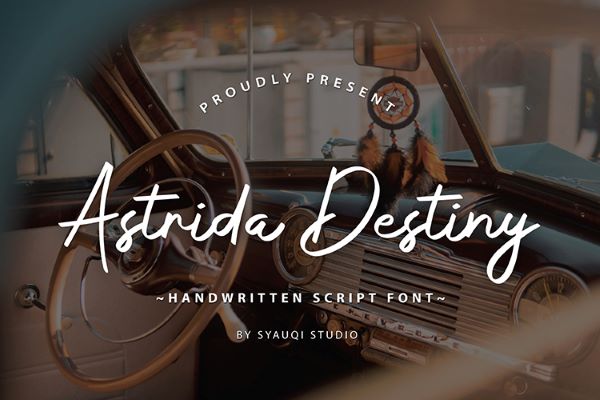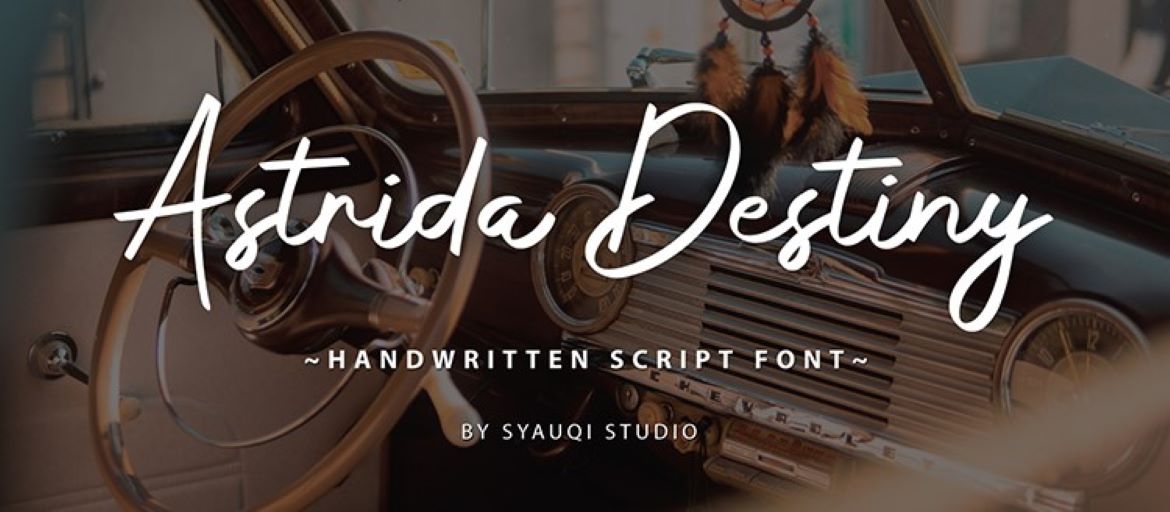
Astrida Destiny Font
Astrida Destiny – Handwritten Script Font
Introducing our new script font “Astrida Destiny”, where timeless elegance meets contemporary sophistication in the realm of script calligraphy fonts.
➤ Font Name:  Astrida Destiny
➤ Designer: Syauqi Studio
➤ Style: Handwritten Script Font
➤ Category: Handwritten / Script / Calligraphy